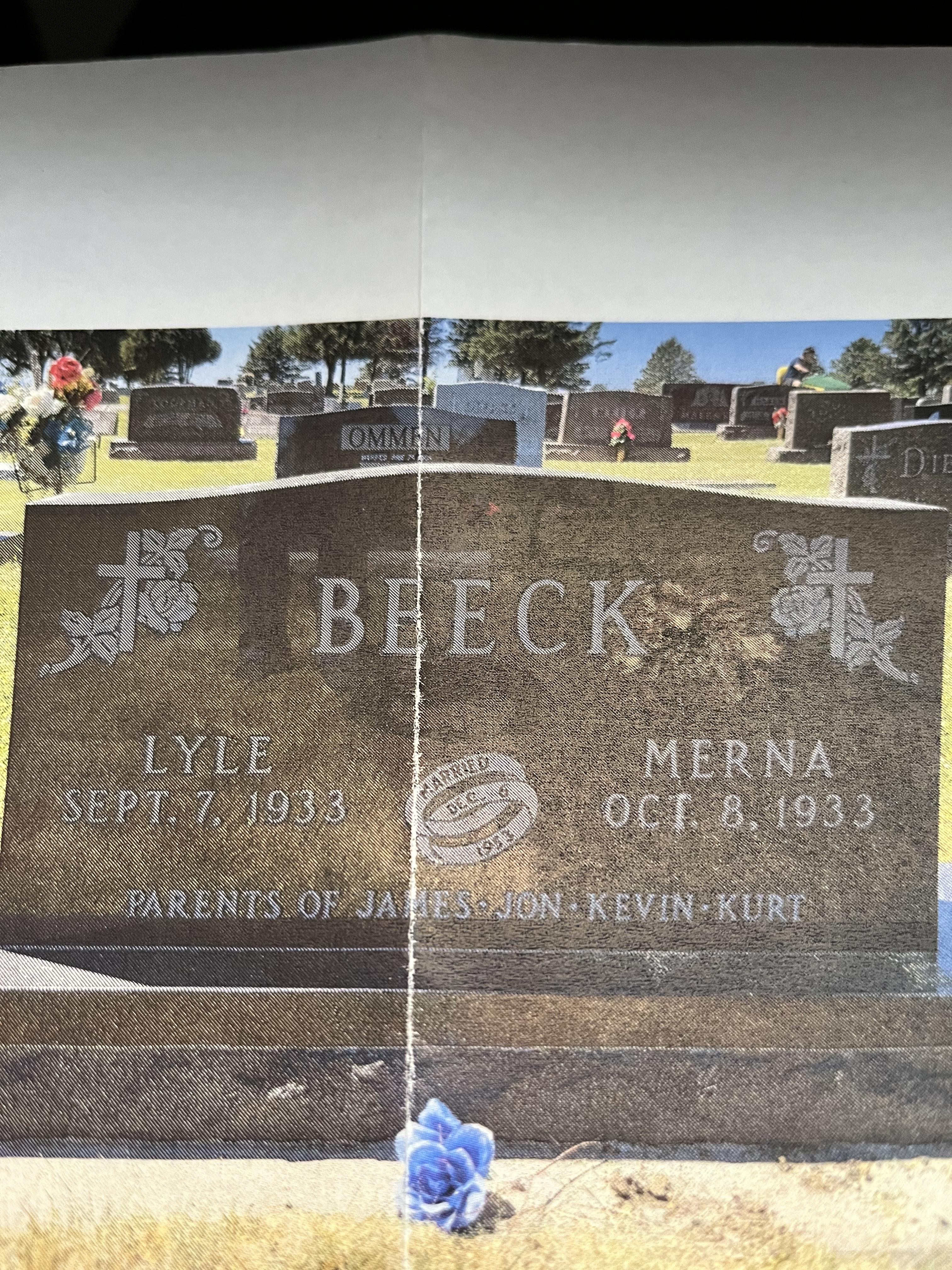
I thought this was FAH that I bought from you but it isn’t wide enough. Any ideas? Thanks.
Hi Jill, this is indeed the FAH Modified Roman. If it isn’t wide or bold enough it was likely modified. Since it was originally always hand-cut it was often slightly modified by the stencil cutter. I would recommend adding a slight stroke to the letters to increase the weight, or manually stretching it to match the width.